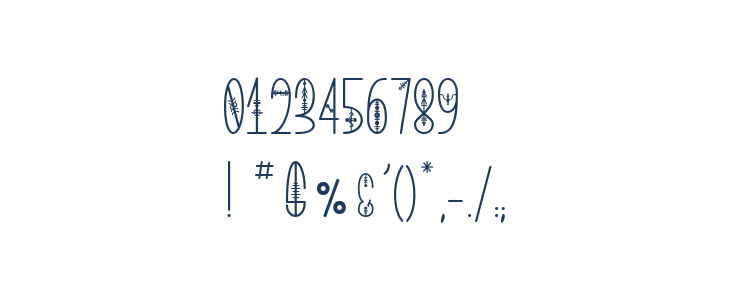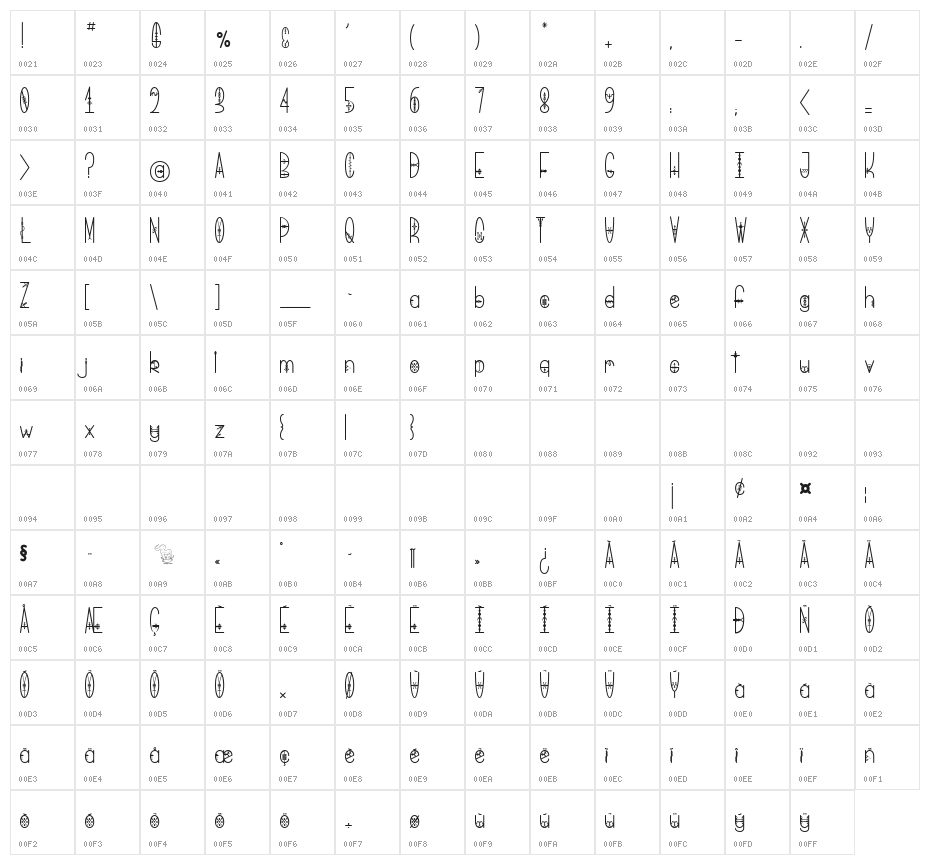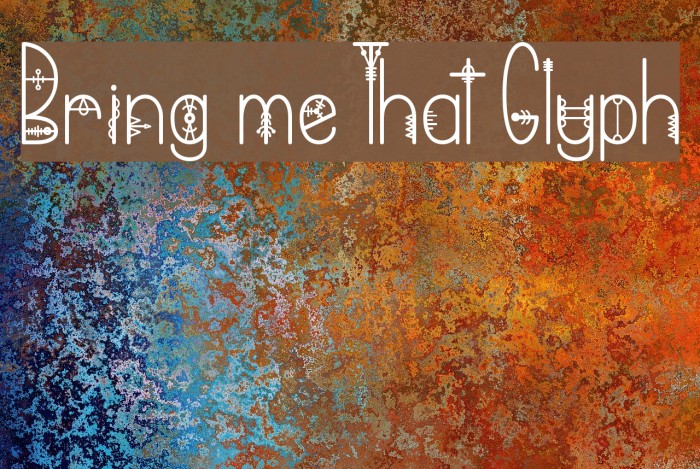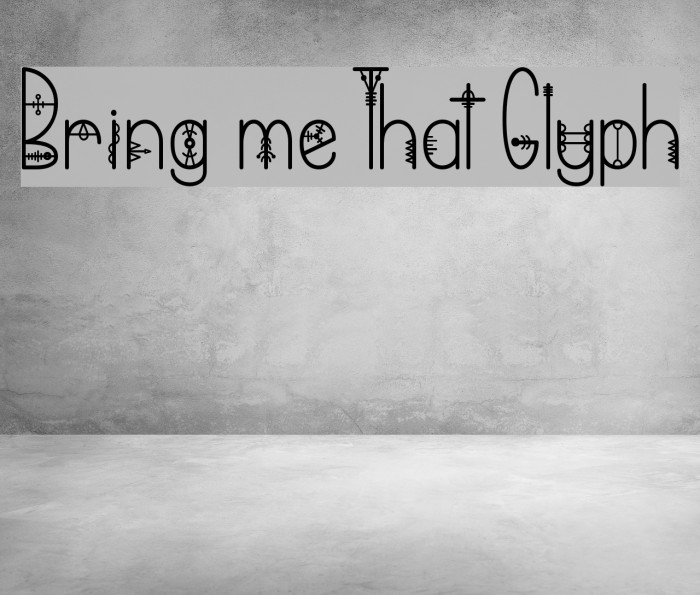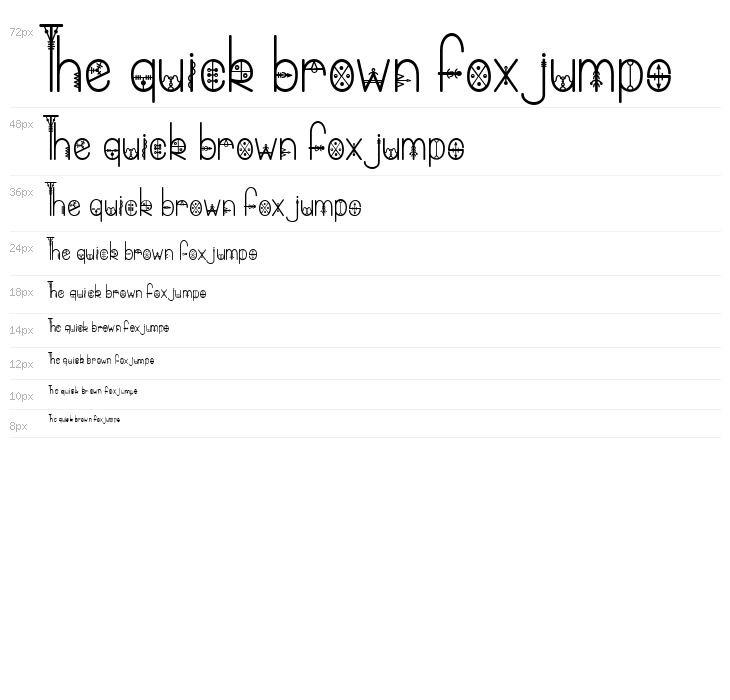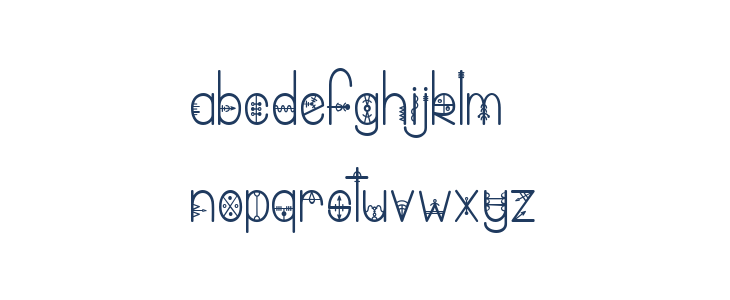
Bring me That Glyph Font
Bring me That Glyph Description
This font features a unique and decorative style, characterized by intricate glyph-like embellishments within each character. The uppercase and lowercase letters maintain a consistent height and width, creating a harmonious appearance. The numerals and special characters are equally adorned with detailed patterns, making them stand out. The overall design is highly artistic, with a tribal or mystical aesthetic that captures attention. This font is not only visually striking but also maintains readability, making it suitable for creative projects that require a distinct and memorable typeface.
| Use Case | Logos, Posters, Book Covers |
| Proposed Projects | Ideal for use in fantasy-themed designs, book covers, posters, and branding that seeks a unique and artistic touch. |